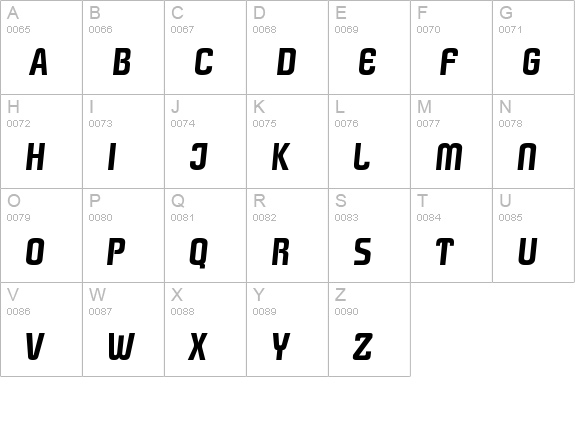
PasadenaEF-DemiBoldItalic Font Details
The PasadenaEF-DemiBoldItalic font is a stunning representation of elegance and sophistication. Its graceful curves and bold strokes give it a unique appeal that is sure to catch the eye. This font is perfect for projects that require a touch of modernity and flair. With its italicized style, PasadenaEF-DemiBoldItalic adds a sense of drama and emphasis to any design. Whether it's used for headings, titles, or even body text, this font effortlessly captures attention and draws the reader in. Its demi-bold weight ensures that your message is conveyed with strength and confidence. One of the best things about PasadenaEF-DemiBoldItalic is that it is free. That's right, this incredible font is freely available to download at FontsMarket.com. This means that you can enhance your designs without breaking the bank. Whether you're a professional designer or a hobbyist, this font is a must-have in your collection. So why wait? Download PasadenaEF-DemiBoldItalic today and let your creativity soar. Whether you're working on a website, a print project, or anything in between, this font will elevate your design to new heights. With its seamless blend of elegance and boldness, PasadenaEF-DemiBoldItalic is the perfect choice for any project that demands attention and style. Don't miss out on this incredible font – get it now and start creating stunning designs that leave a lasting impression.